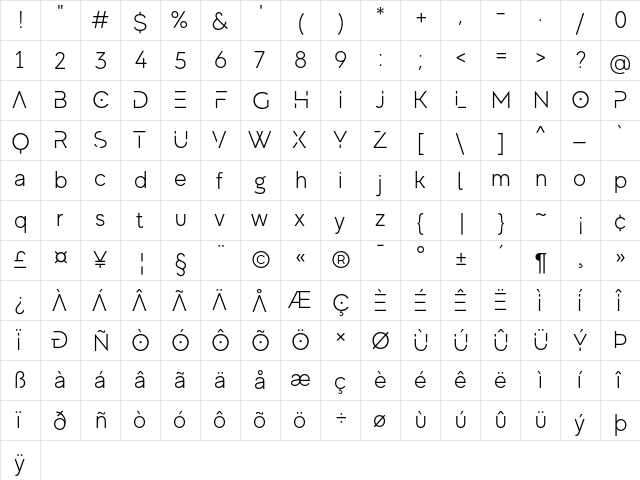
MADE Evolve Sans EVO Light
| Foundry | MadeType |
| Designer | MadeType |
Design Context for MADE Evolve Sans EVO Typeface
MADE Evolve Sans EVO takes a measured approach to typography — its balanced proportions and neutral character make it a reliable workhorse for both digital and print work. The delicate stroke weight brings airiness and refinement to layouts.
Pro Tip: Use MADE Evolve Sans EVO in both headline and body roles to test its range before committing to a single application.